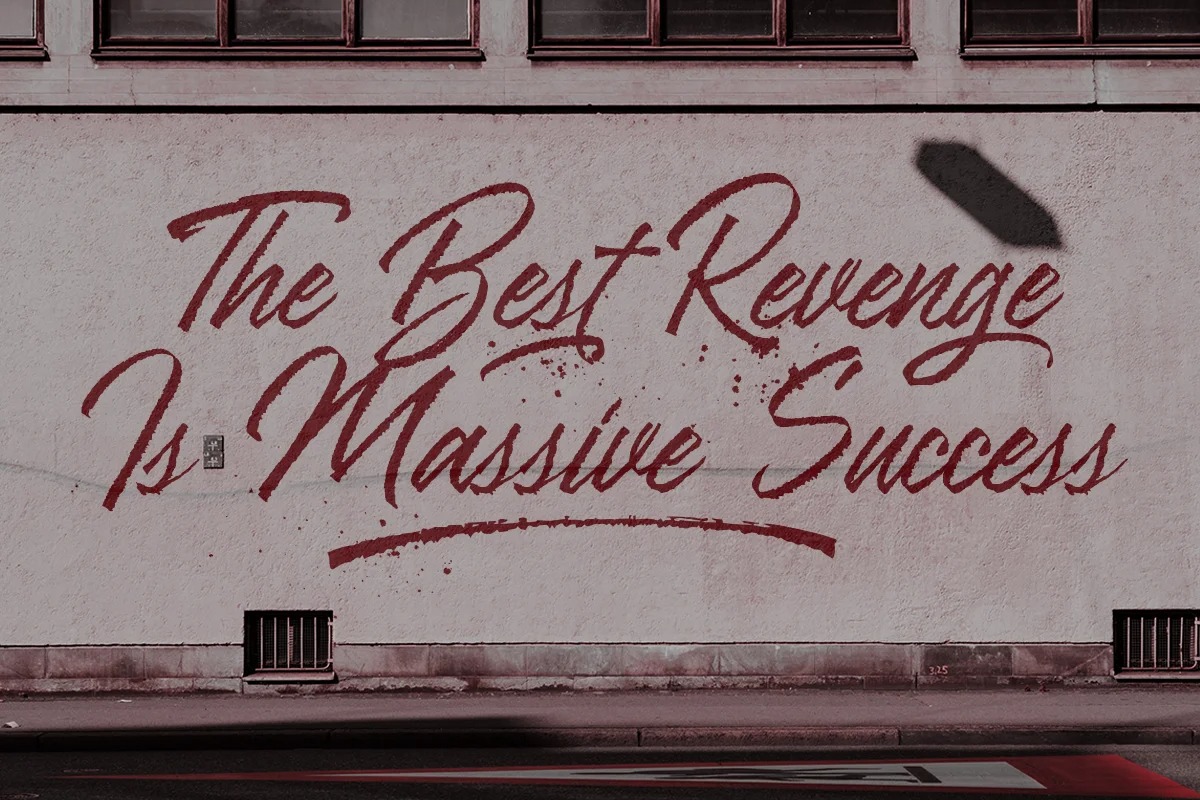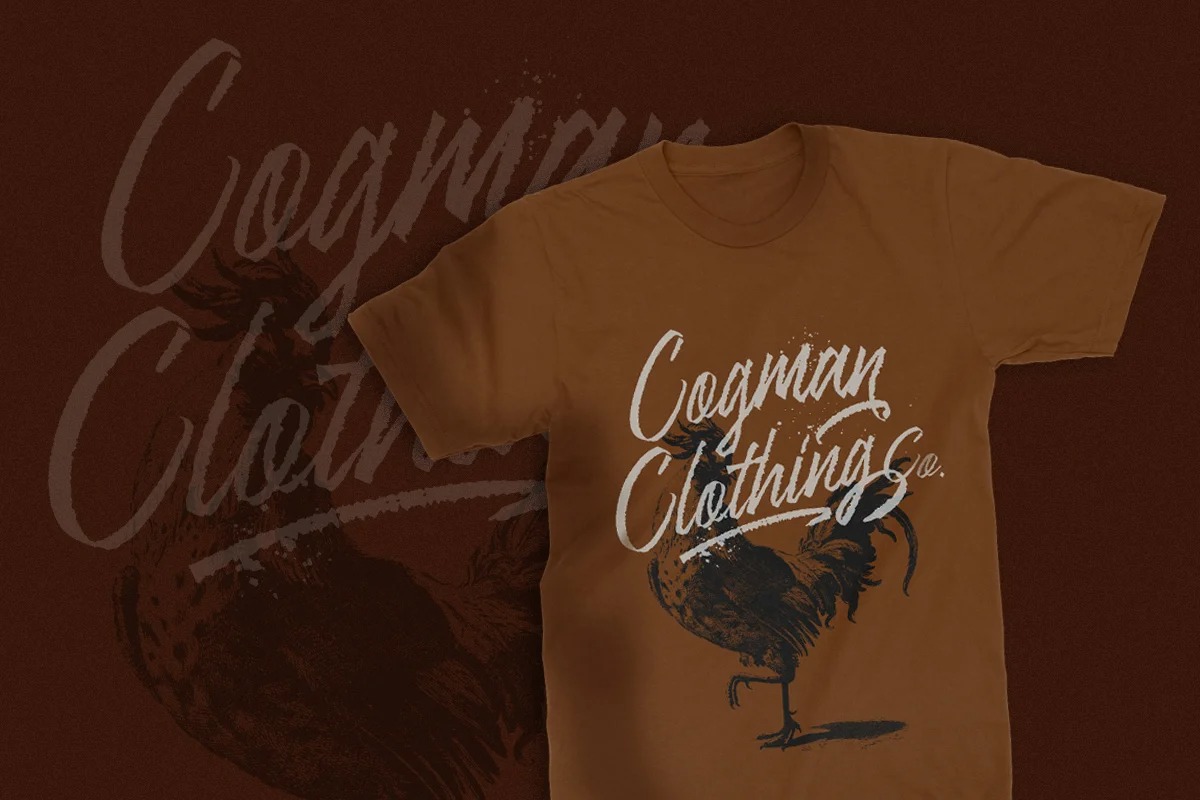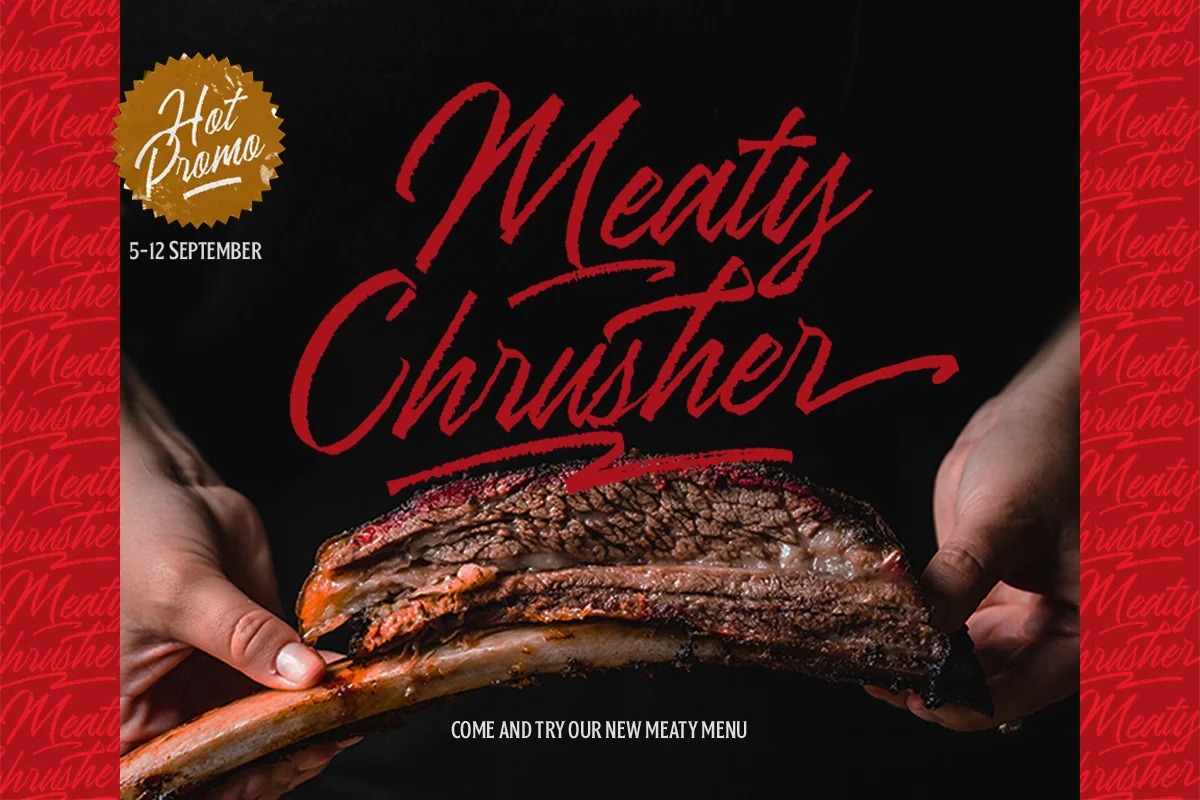
Ranshell Font
Ranshell Brush Font
This is a beautiful brush typeface manufactured by Letterhend Studio. It brings a elegant and attractive typeface. This font was made based on real hand brushed lettering. The rough texture make this font looks cool and tough. This type of font perfectly made to be applied especially in apparel, clothing, labels, logos, magazines, books, greeting / wedding cards, packaging, fashion, make up, stationery, novels, labels or any type of advertising purpose.